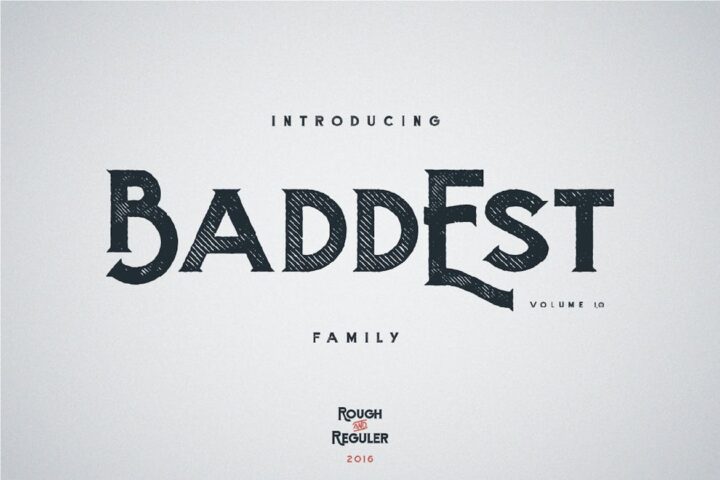
Baddest typeface
Introducing Baddest Family Typeface can make your design more stunning and more Awesome, Baddest Family Typeface is perfect for making design: Badges, posters, a variety of quotes, header, logo design, blog headers, all kinds of covers, T-shirts, mugs, etc.
Baddest Family includes :
Uppercase Lowercase Ligatures Stylistic Set Numerals & Punctuations Rough & Reguler Font